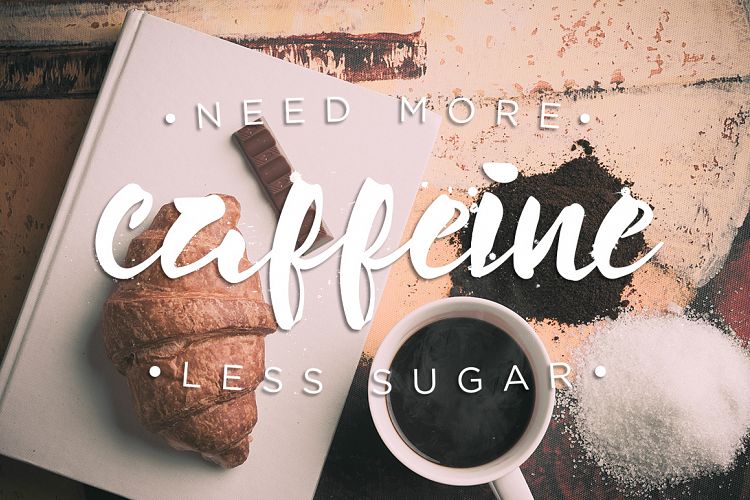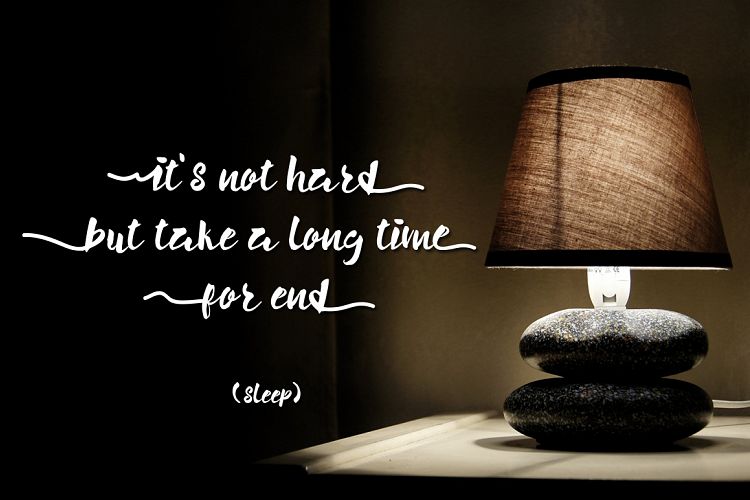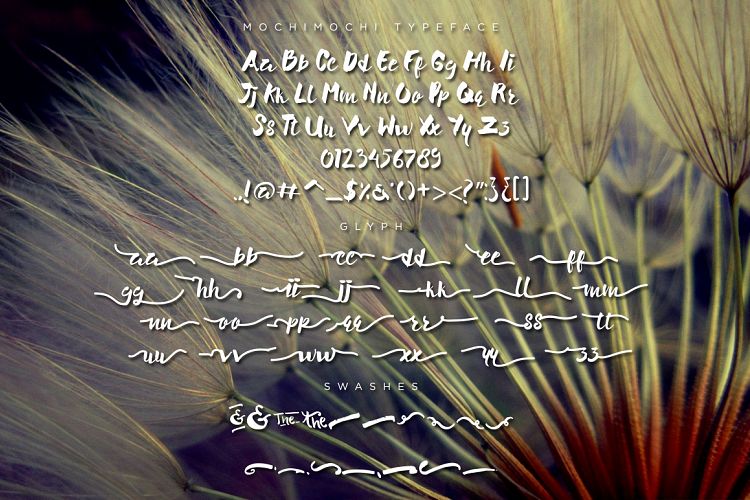
Mochimochi Brush
Mochimochi Brush Font
Mochimochi Bold is new handpainted brush with stylistic alternate, ligature, and swashes for bonus. u can use this font for project like a theme adventure, cover design, traveling, cafe, cooking, holiday, poster, quotes, headlines, logo, t-shirt. It comes with Uppercase, Lowercase, Numbers.